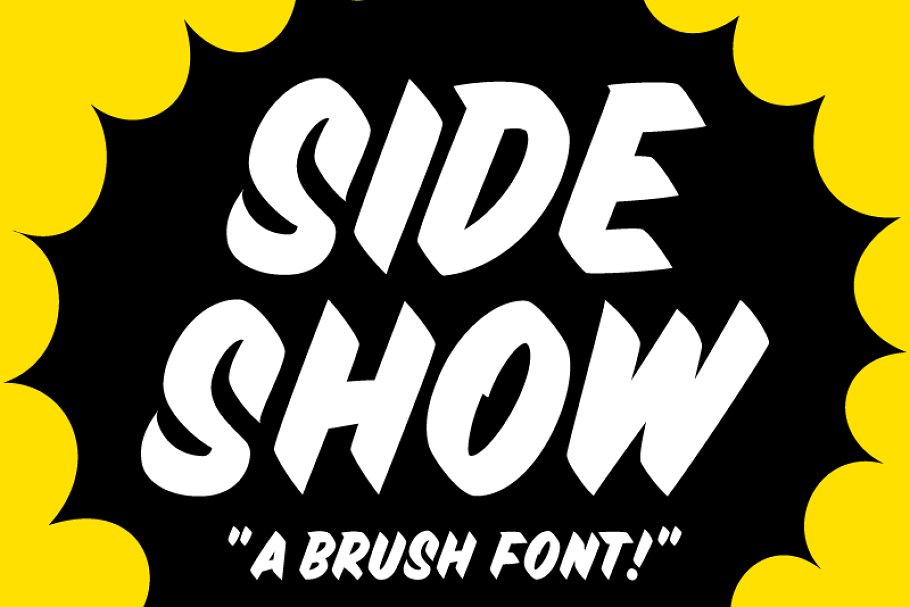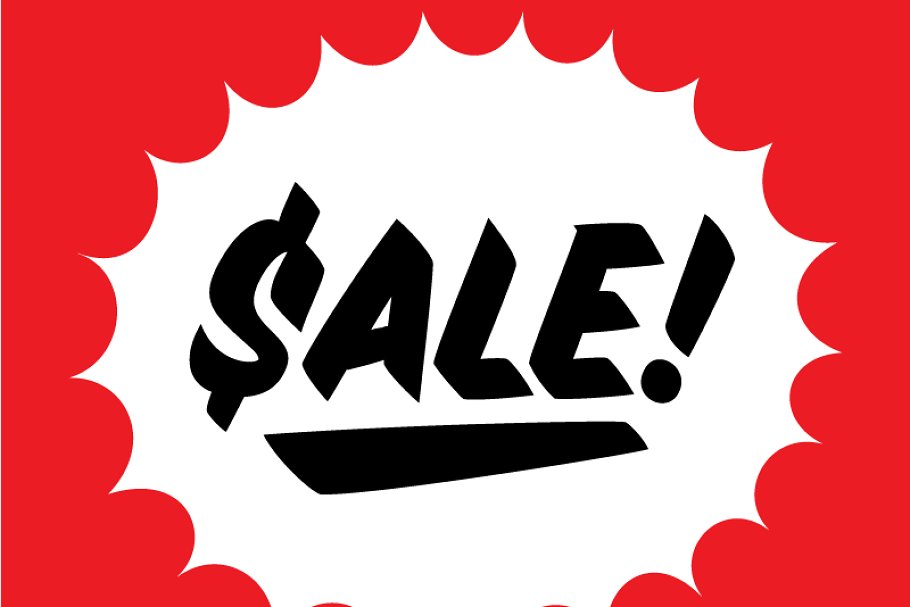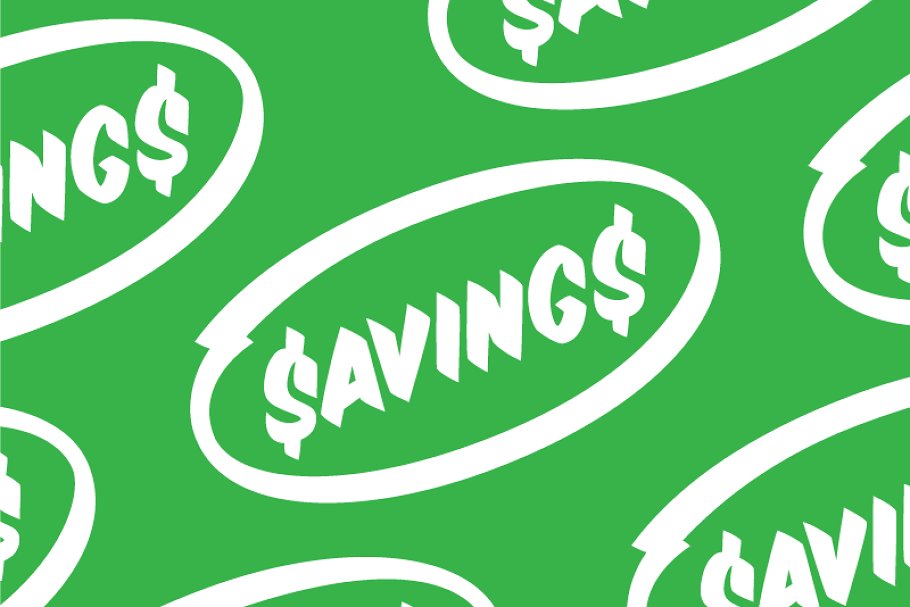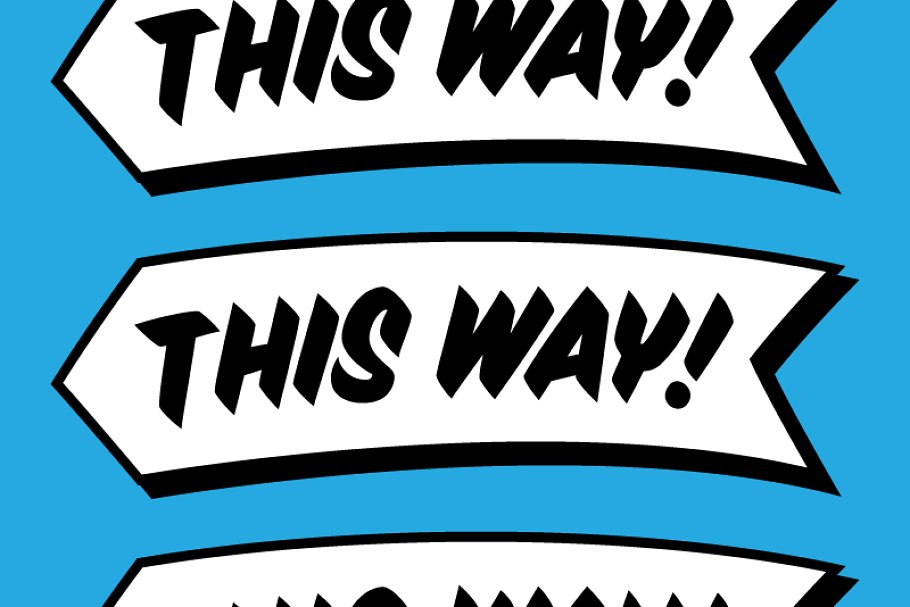
About the Slideshow Display Font
Inspired by the art of sign painting, Sideshow is the ideal display font for announcing a big event, sale or anything important, This display font comes with an excellent assortment of special graphic-glyphs that won’t be ignored, Features:UppercaseNumbers Select punctuation marksSpecial illustrative glyphsOTF file Designed by Drew MeltonPro Tip! If you’d like to access the full glyphs palette check out this tutorial: http://help